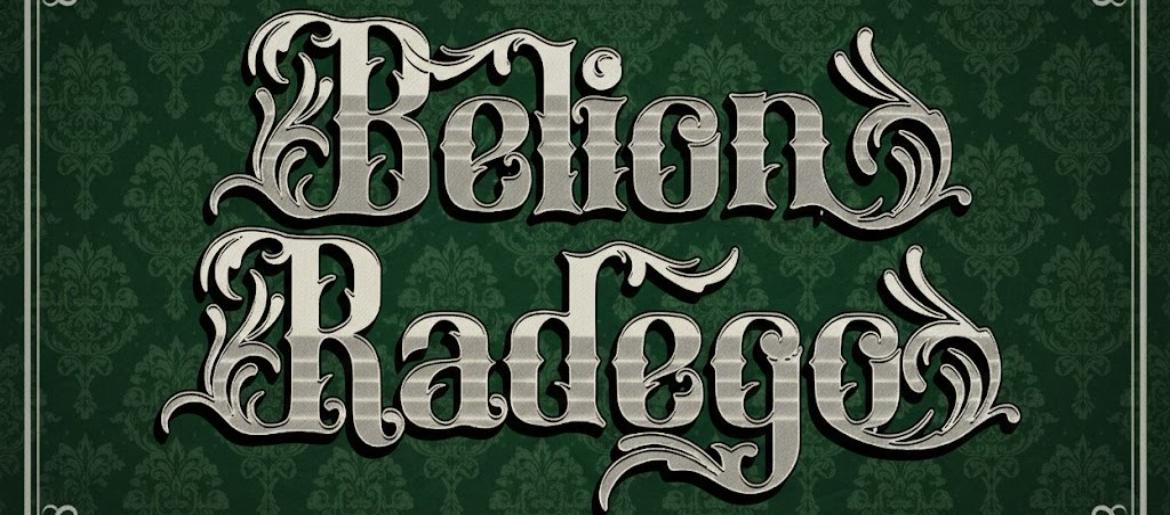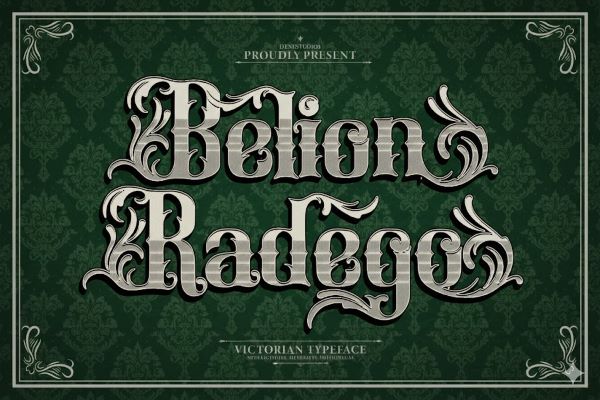
Belion Radego Font
Belion Radego Font is a decorative Victorian-style typeface inspired by classic 19th-century lettering. With ornate details and dramatic forms, it’s ideal for vintage posters, labels, logos, book covers, and designs that seek an elegant, old-world atmosphere.
➤ Font Name: Belion Radego
➤ Designer: Denustudios
➤ Style: Victorian